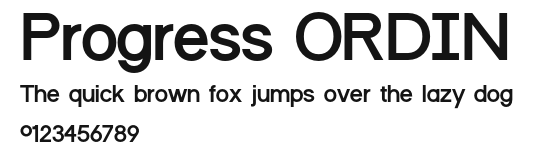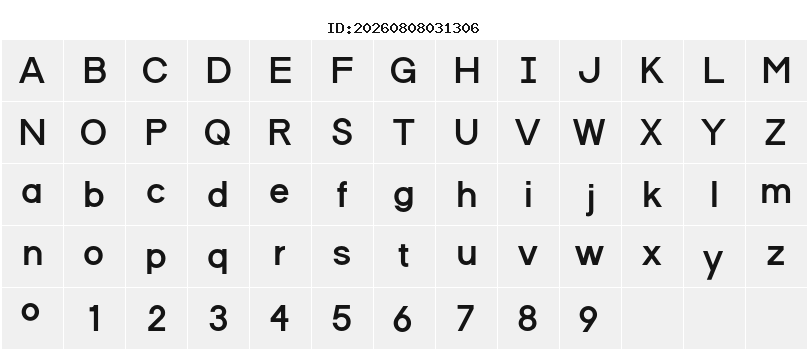
• Font Name: Progress ORDIN
• Manufacturer: PYRS Fontlab Ltd. / Made with FontLab
• Description: Progress ORDIN is a font by PYRS Fontlab Ltd. / Made with FontLab, designed in 2014.
About Progress ORDIN.otf
Progress ORDIN.otf is a modern, elegant sans-serif font designed for ultimate readability and visual harmony. Perfect for branding, headlines, web design, and print materials.